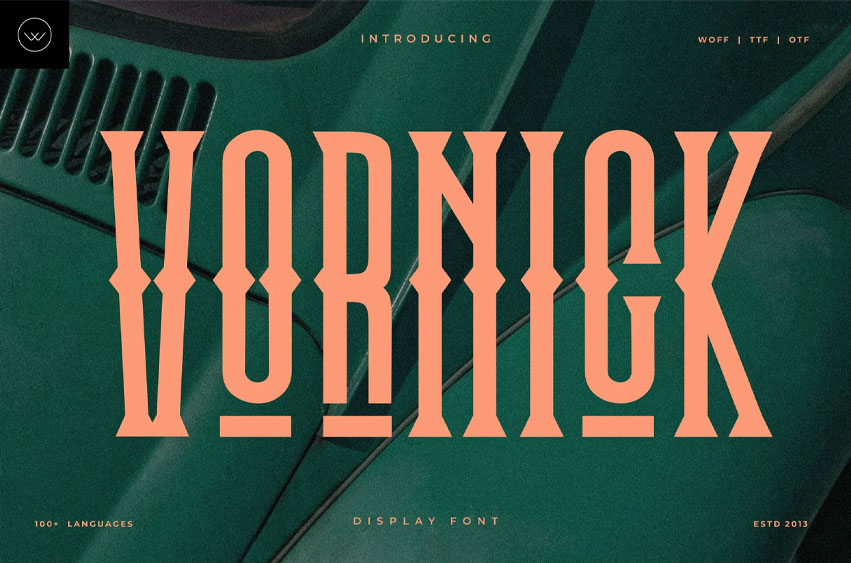
Vornick Font is a bold, condensed display typeface that captures the magnificent allure of vintage signage, blending it perfectly with clean, contemporary design. With its towering vertical presence, powerful straight lines, and distinctive ornamental serifs, Vornick creates an immediate sense of nostalgia and high impact.
Inspired by the decorative hand-lettering of classic Americana, fairground posters, and classic rock-and-roll album covers, Vornick is designed for projects that demand to be seen. It’s the perfect headline font for logos, packaging, posters, editorial titles, and branding that needs a unique blend of heritage and modern flair.
Vornick’s carefully balanced proportions and unforgettable letterforms make it an exceptional choice for beverage branding, musical events, film titles, or any design seeking bold elegance and a touch of the extraordinary.
- Uppercase letters
- 200+ Glyphs
- Numbers
- Punctuations